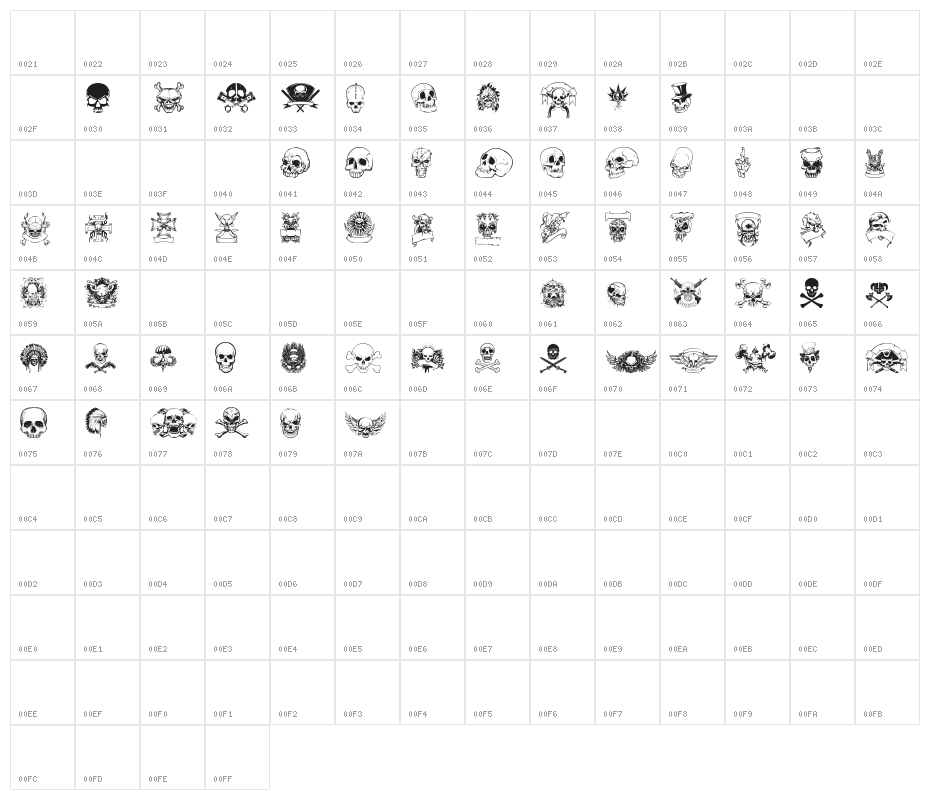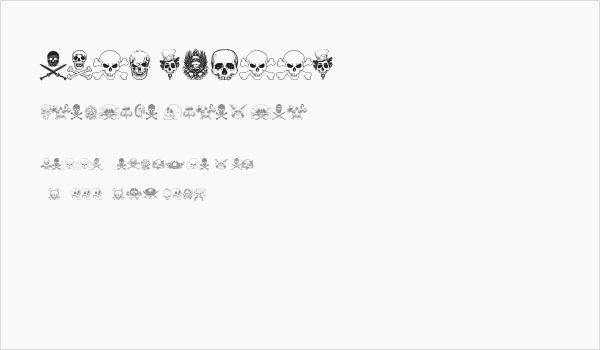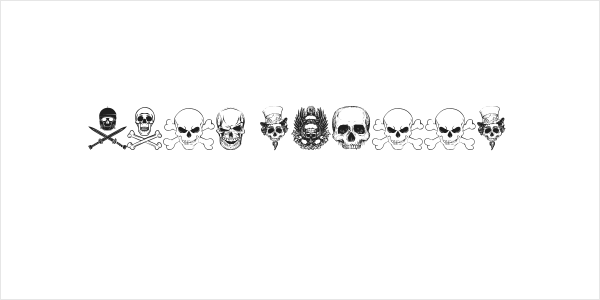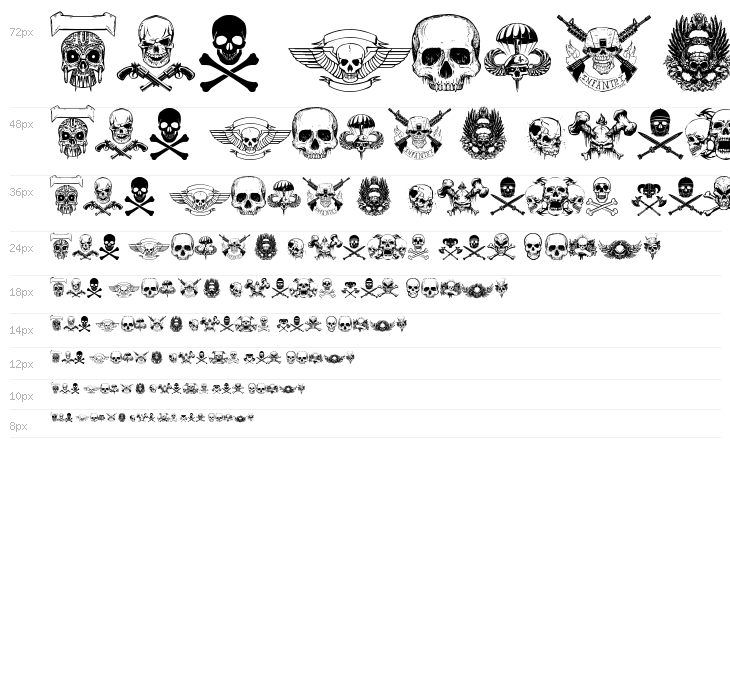
only skulls Font
only skulls Description
A highly decorative and illustrative collection of skull-themed glyphs, each character represented by a unique skull or skull-based design with intricate details, often incorporating crossbones, wings, hats, banners, and other graphic elements. The style is bold, with high contrast and varying line weights, emphasizing a hand-drawn, tattoo-inspired aesthetic.
| Overall Style | Decorative, Tattoo, Edgy |
| Use Case | Logos, Posters, Themed Graphics, Merchandise |
| Proposed Projects | Tattoo designs, poster art, band logos, Halloween graphics, merchandise, edgy branding. |